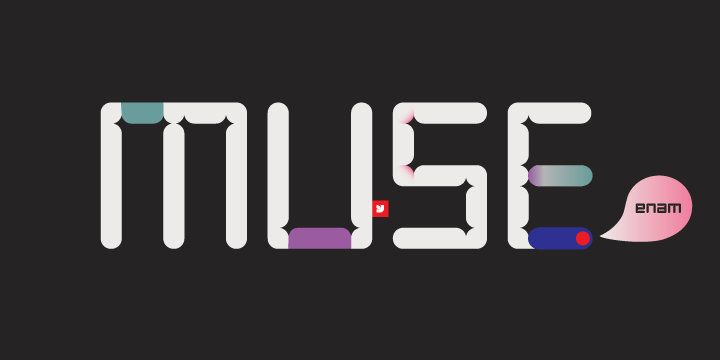
YWFT Enam’s letterforms began first as custom lettering during a branding job by the design firm WeWorkForThem, it was later developed into font format in 2002 (opentype format in 2010). After the job, it was later noticed it has some similarity to past work by Wim Crouwel, which is no surprise considering WWFT’s admiration for Crouwel.
Each weight in YWFT Enam changes quite dramatically, giving it a different look and feel from weight-to-weight, while still being consistent in thought. YWFT Enam is an interesting typeface design that has no specific relation to any time/design period, it’s one of a kind and unique execution in typeface design.